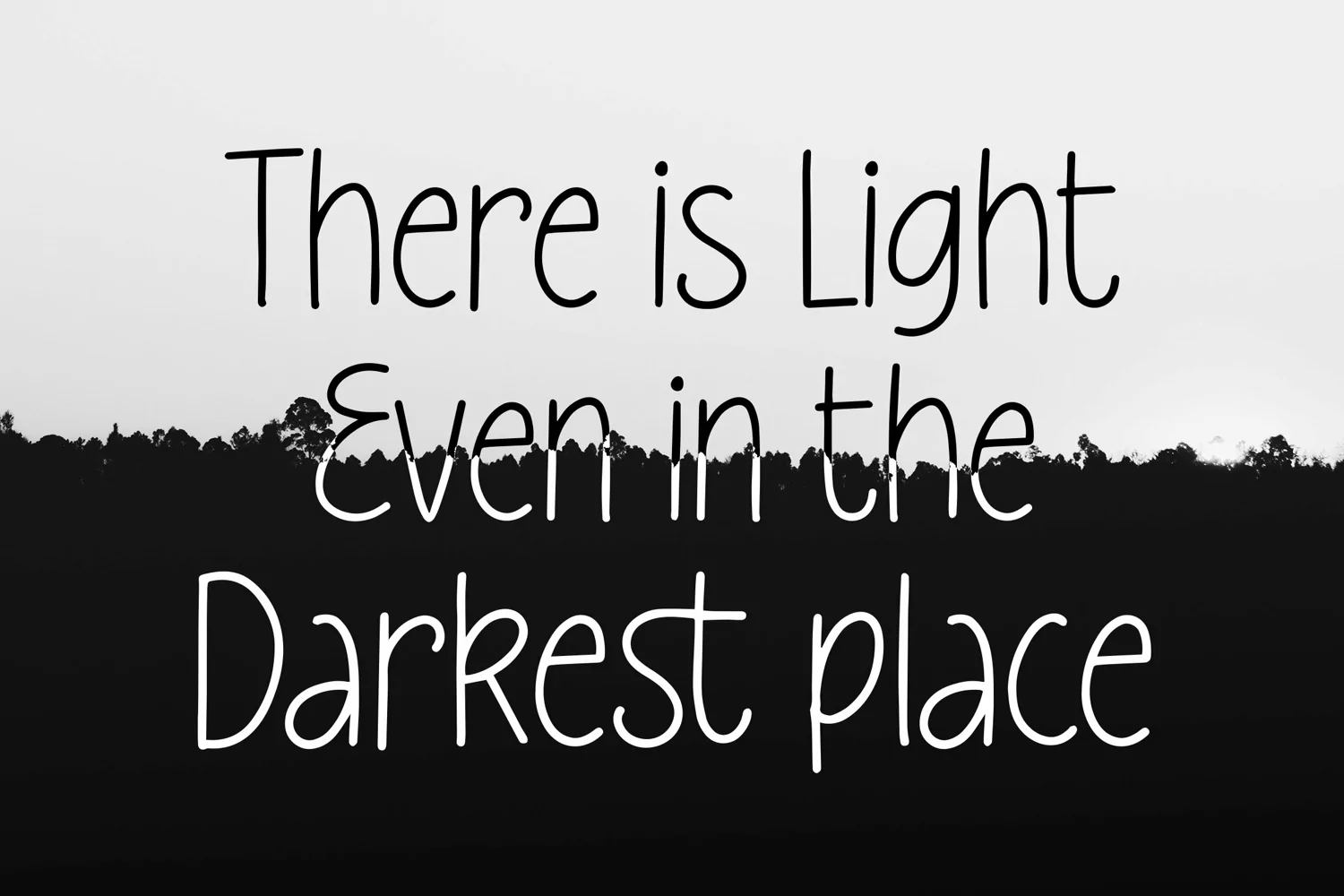
Wonder Magical - Slim Handmade Font
Wonder Magical - Slim Handmade Font that contain lowercase, uppercase, symbol, and also support multi language. There’s a lot ligatures in this font. This Font also comes with ligatures, alternates and many more. this font suitable for fashion, branding, catalog and other design what you want.